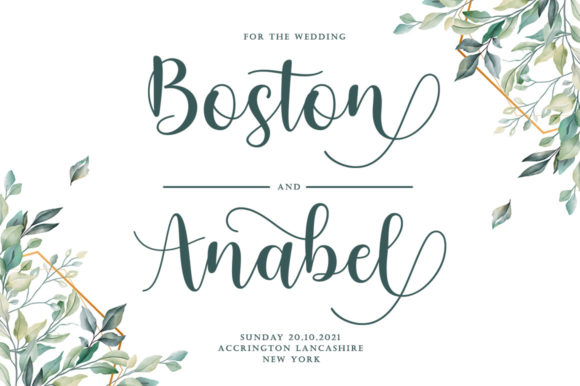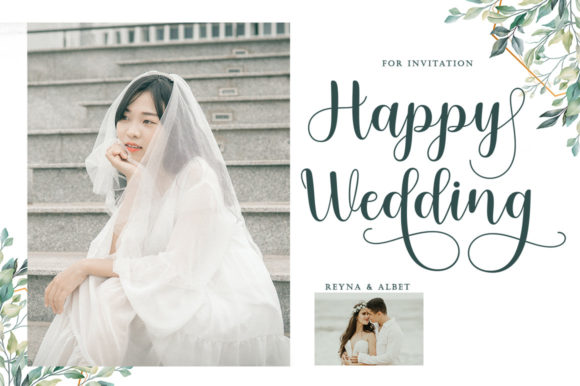
Flower Spring Font
db-ku.com - Script & Handwritten -- Flower Spring Script is a modern calligraphy font featuring basic variations, smooth lines, and classic and elegant touch.